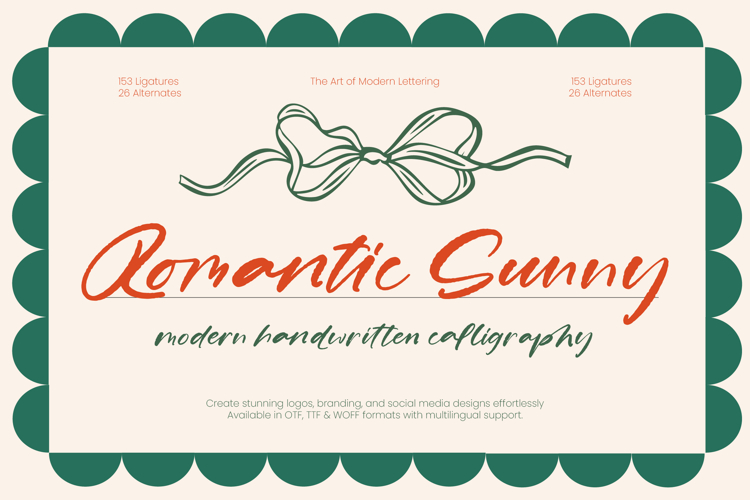
Romantic Sunny - Modern Handwritten Calligraphy
Embrace the art of expressive design with Romantic Sunny - Modern Handwritten Calligraphy, a typeface that perfectly balances organic fluidity with contemporary sophistication. This font captures the authentic texture of a natural brush, offering a warm and inviting aesthetic that resonates with modern audiences. By integrating Romantic Sunny - Modern Handwritten Calligraphy into your projects, you infuse every character with a sense of handcrafted luxury and effortless charm, ensuring your message stands out in a crowded digital landscape.
Maximize your creative potential with a rich array of OpenType features designed for professional precision. Boasting 153 custom ligatures and 26 stylistic alternates, Romantic Sunny - Modern Handwritten Calligraphy provides the tools necessary to create unique typographic compositions that mimic true handwriting. Whether you are developing bespoke logos or striking headlines, the versatility of Romantic Sunny - Modern Handwritten Calligraphy allows for a personalized touch that elevates the visual quality of any premium design project.